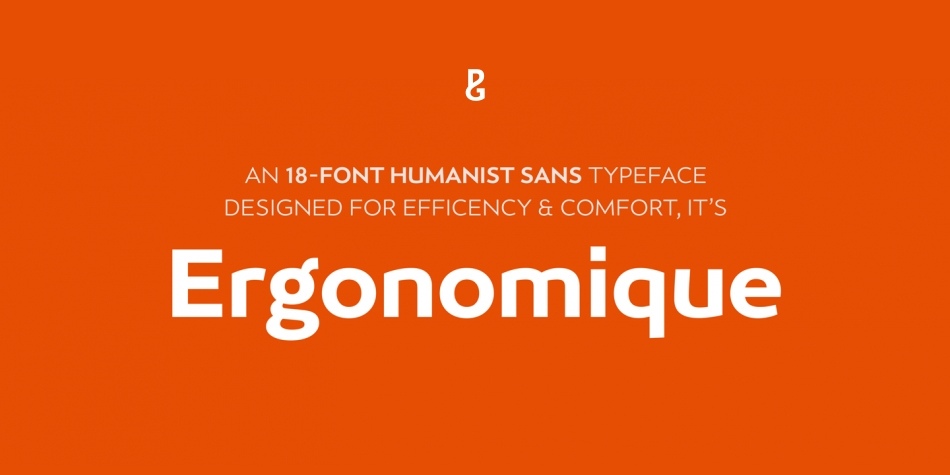
Ergonomique Font
Ergonomique Font is perfect for modern branding projects, sleek website headers, minimalist poster designs, corporate presentations, and professional logo creation. This versatile typeface excels in digital interfaces, editorial layouts, and contemporary advertising campaigns where clean readability meets sophisticated style.
What makes Ergonomique Font so exciting is its perfect balance between functionality and aesthetics. The font incorporates ergonomic design principles that reduce eye strain while maintaining visual appeal, making it ideal for extended reading sessions. Its carefully crafted letterforms feature subtle curves and optimized spacing that create a harmonious reading experience across all devices and print media.
Ergonomique Font comes in multiple weights and styles including Regular, Light, Medium, Bold, and Extra Bold variants. Each family member includes both uppercase and lowercase characters, complete punctuation sets, numerals, and special characters. The font family also offers italic versions for each weight, providing designers with comprehensive typographic flexibility for any project requirement.
The font's clean geometric structure makes it particularly suitable for tech companies, healthcare brands, educational institutions, and any organization that values clarity and accessibility. Its neutral yet distinctive character allows it to adapt seamlessly to various design contexts while maintaining its unique personality. The careful attention to detail in each glyph ensures optimal legibility at both large display sizes and small body text applications, making it a reliable choice for comprehensive design systems.